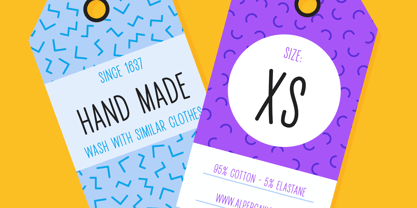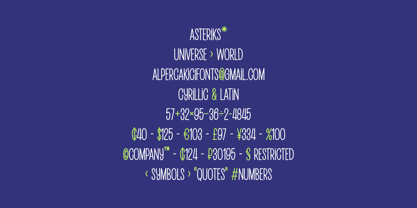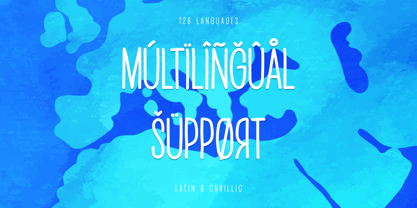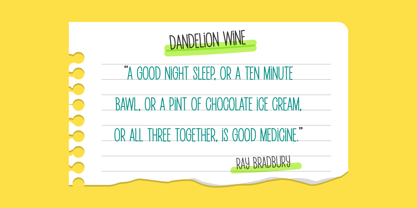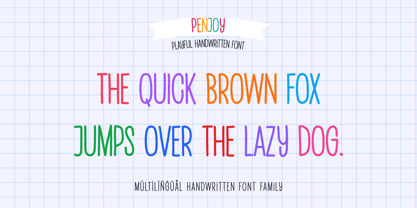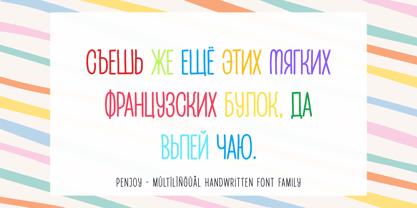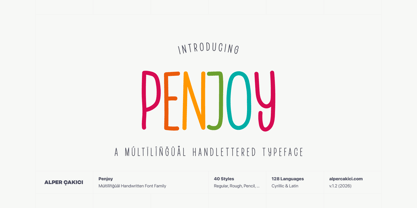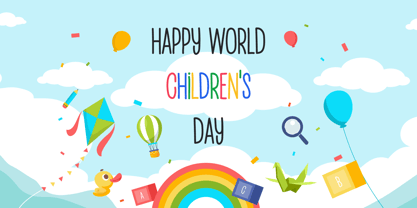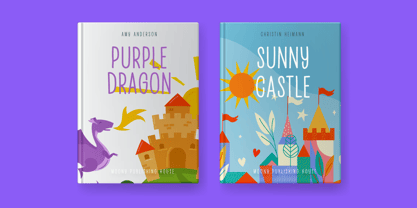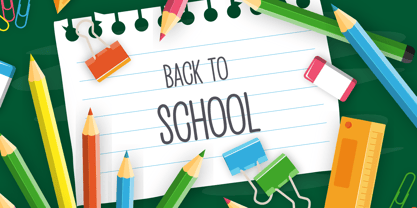
Penjoy
by AlperCakici
The Penjoy Font Family was designed by Alper Çakıcı and published by AlperCakici. Penjoy contains 40 styles and family package options. More about this family
Penjoy is a delightful handwritten font designed specifically for children, igniting imagination, creativity, and playful expression. Featuring natural strokes, friendly curves, and a lively personality, Penjoy embodies the charm of authentic handwriting while ensuring excellent readability. This versatile font is perfect for a variety of applications, including children’s books, educational materials, classroom posters, toy packaging, birthday invitations, comics, branding, and social media graphics. Penjoy infuses warmth and fun into every design project. Whether you're crafting something sweet and soft or bold and energetic, Penjoy offers the flexibility to align with your creative vision. From clean classroom notes to textured chalkboard aesthetics, and from smooth brush lettering to rough crayon-like strokes, Penjoy makes it effortless to mix, layer, and play with your designs.